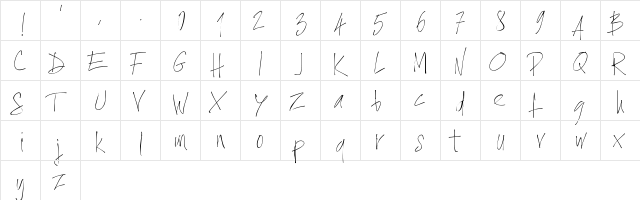
PWXtraThin Thin
Design Context for PWXtraThin Typeface
PWXtraThin is a composed and adaptable typeface that performs quietly and consistently across a wide range of design contexts. The delicate stroke weight brings airiness and refinement to layouts.